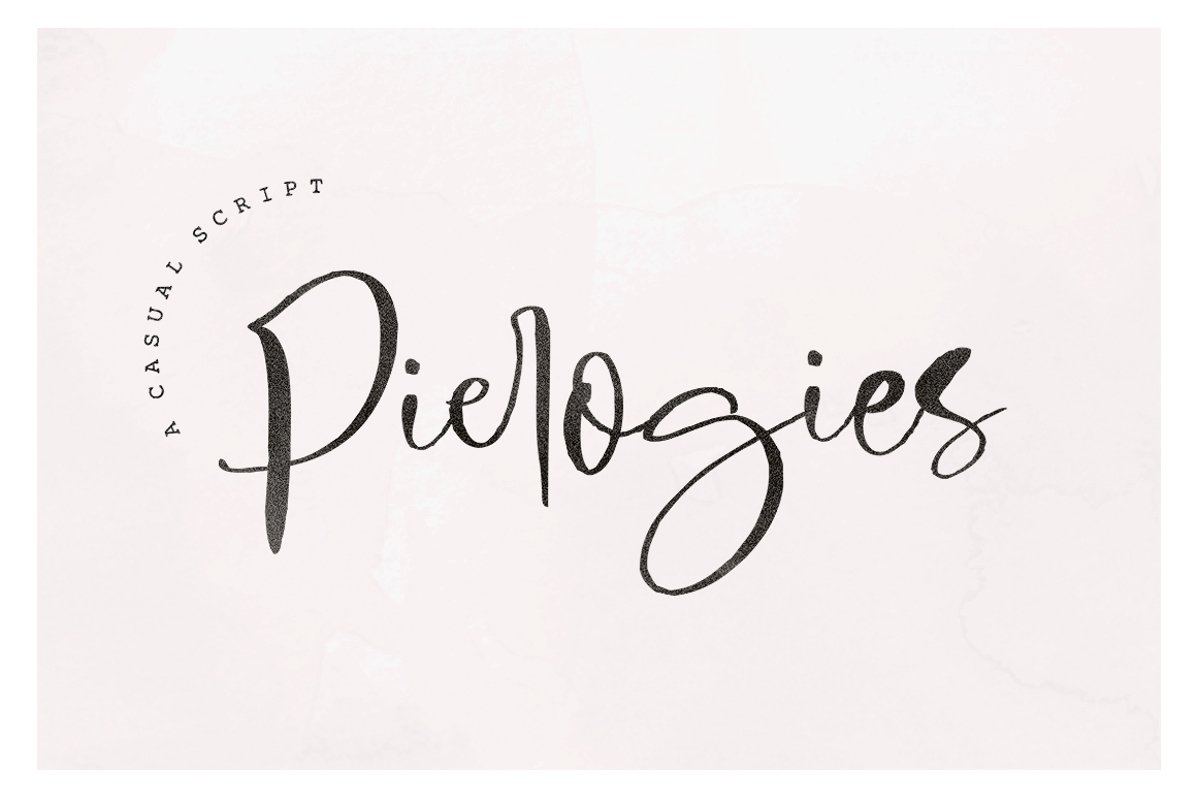
Pierogies
Pierogies Is a signature font, specifically made with a very interesting and unique style when typing letters that are followed by interesting ligatures and a few alternatives, this font is perfect for various design needs such as creating logos, business cards, posters, invitations, packaging products, etc.